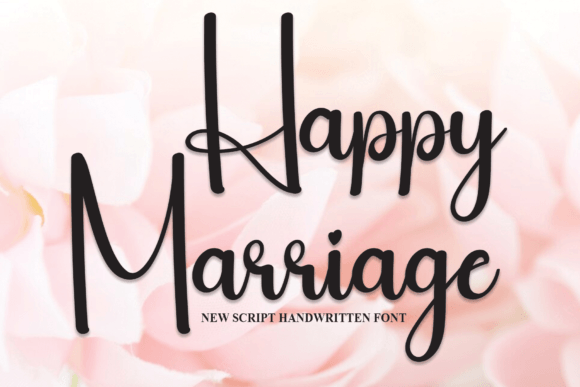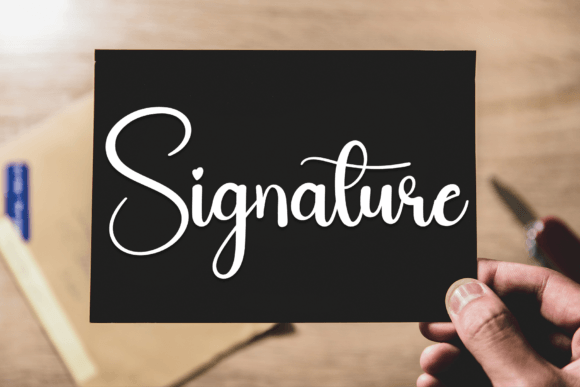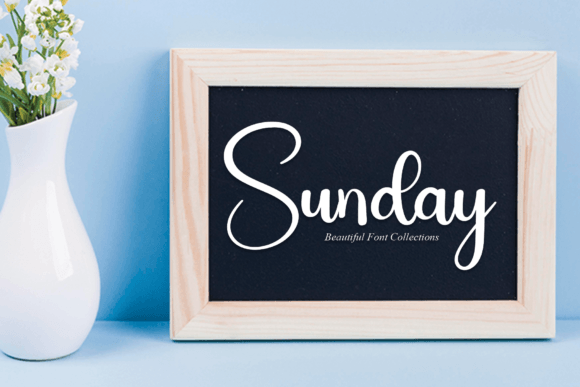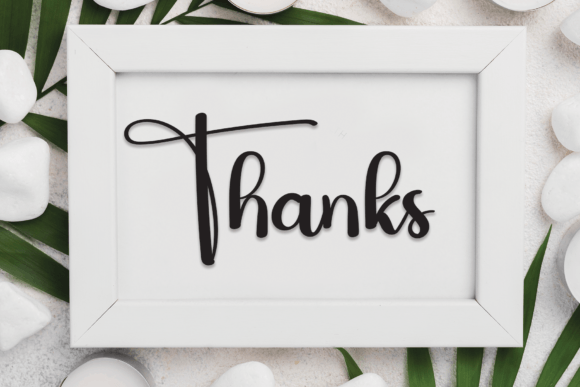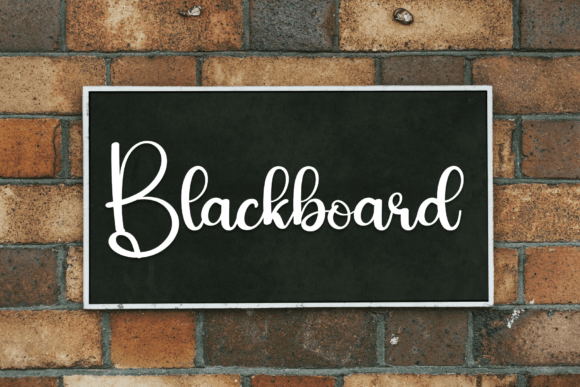
Happy Marriage Font
Bring warmth and charm to your creative projects with the Happy Marriage font. This simple and friendly handwritten script is designed to be versatile and easy to use. Whether you’re working on crafts, digital designs, presentations, or greeting cards, this font can quickly become your favorite.
The Happy Marriage font offers a clean and approachable style. Its natural strokes and well-balanced characters make it highly readable. Because of this, it fits perfectly in both casual and formal projects. It adds a personal and inviting touch to your work.
Each character in the Happy Marriage font is crafted with care to ensure both clarity and style. The smooth, elegant strokes create a harmonious look that enhances your design. It is ideal for headlines, quotes, invitations, and decorative text.
Despite its simple design, the Happy Marriage font remains highly legible at various sizes. Whether you use it for bold titles or subtle accents, it adds charm and clarity to your creations.
Using this font will help your projects stand out with a memorable and warm style. If you want your creative work to feel inviting and polished, the Happy Marriagefont is an excellent choice.
In summary, the Happy Marriagefont suits many creative needs. From crafts and presentations to greeting cards and digital designs, it brings friendliness and elegance. Download it today and create beautiful, versatile designs with this handwritten script.